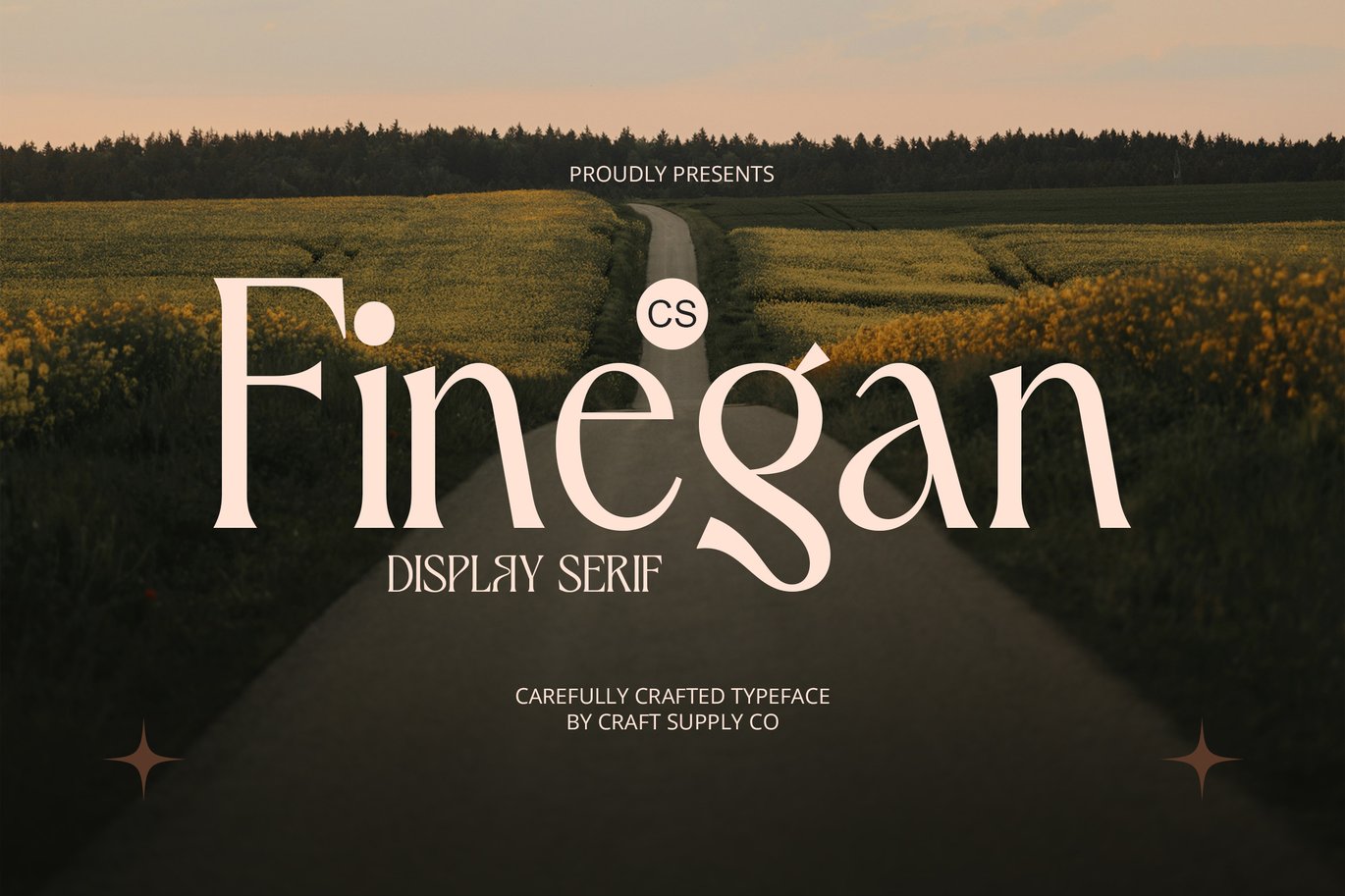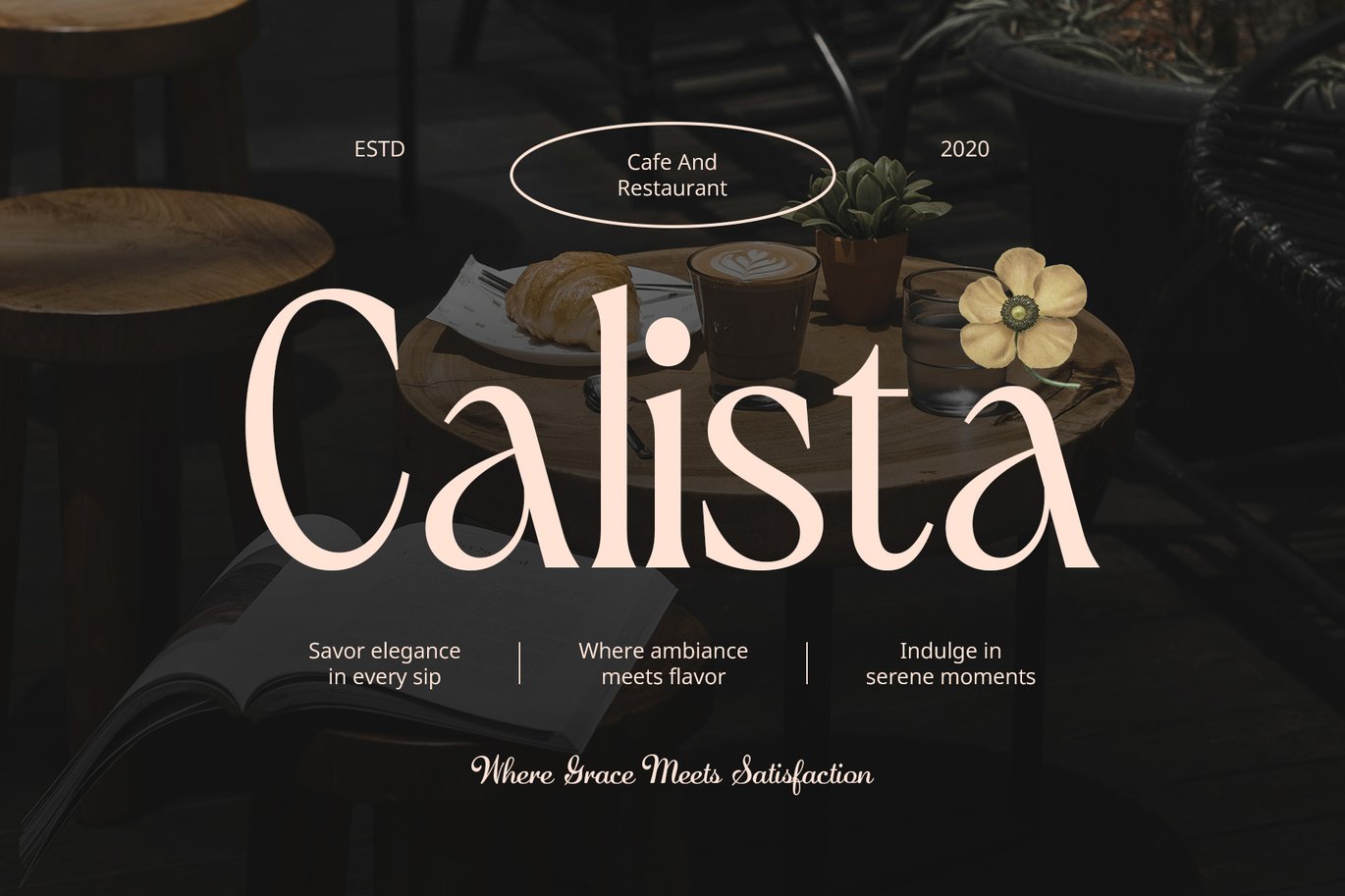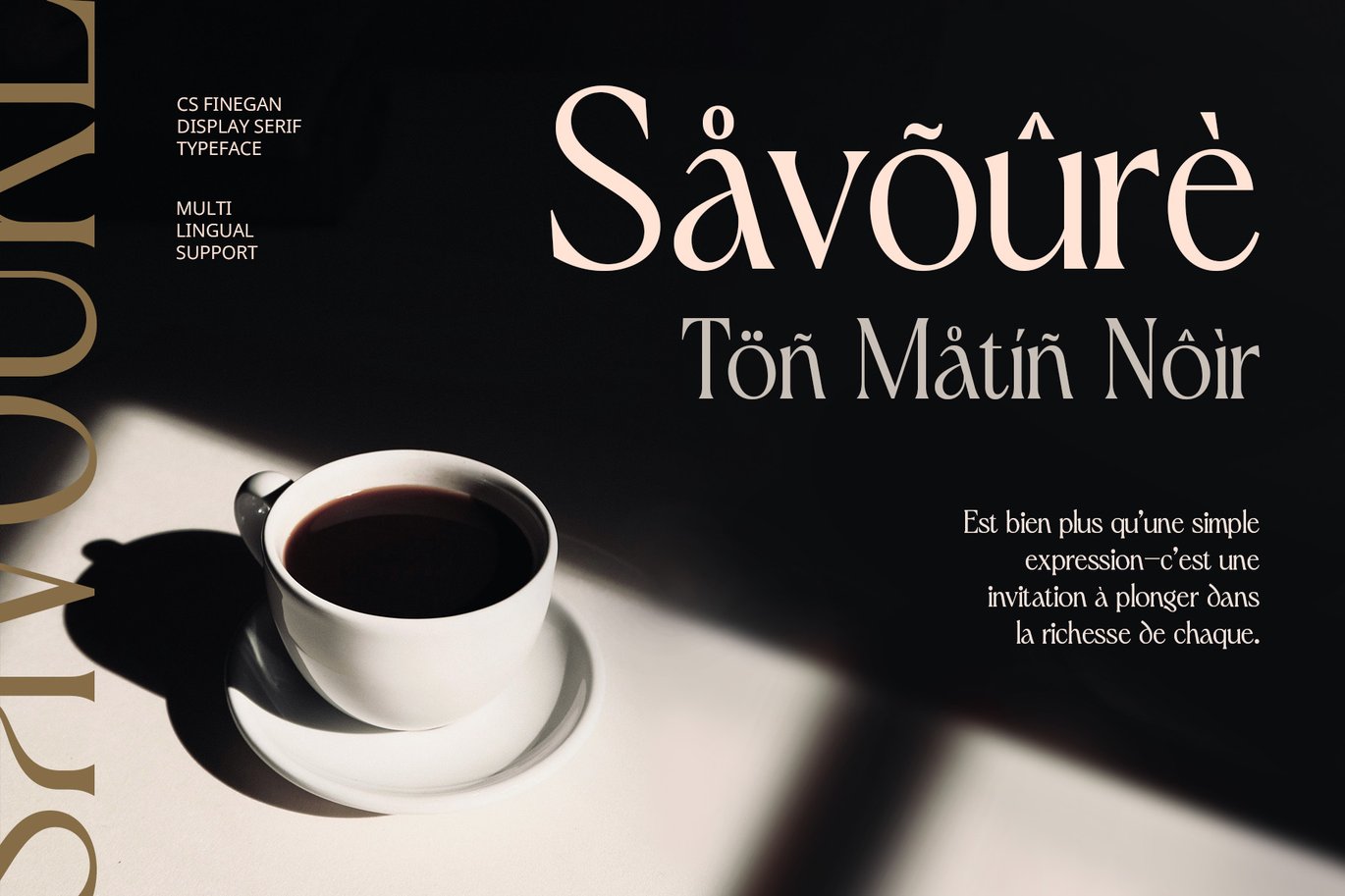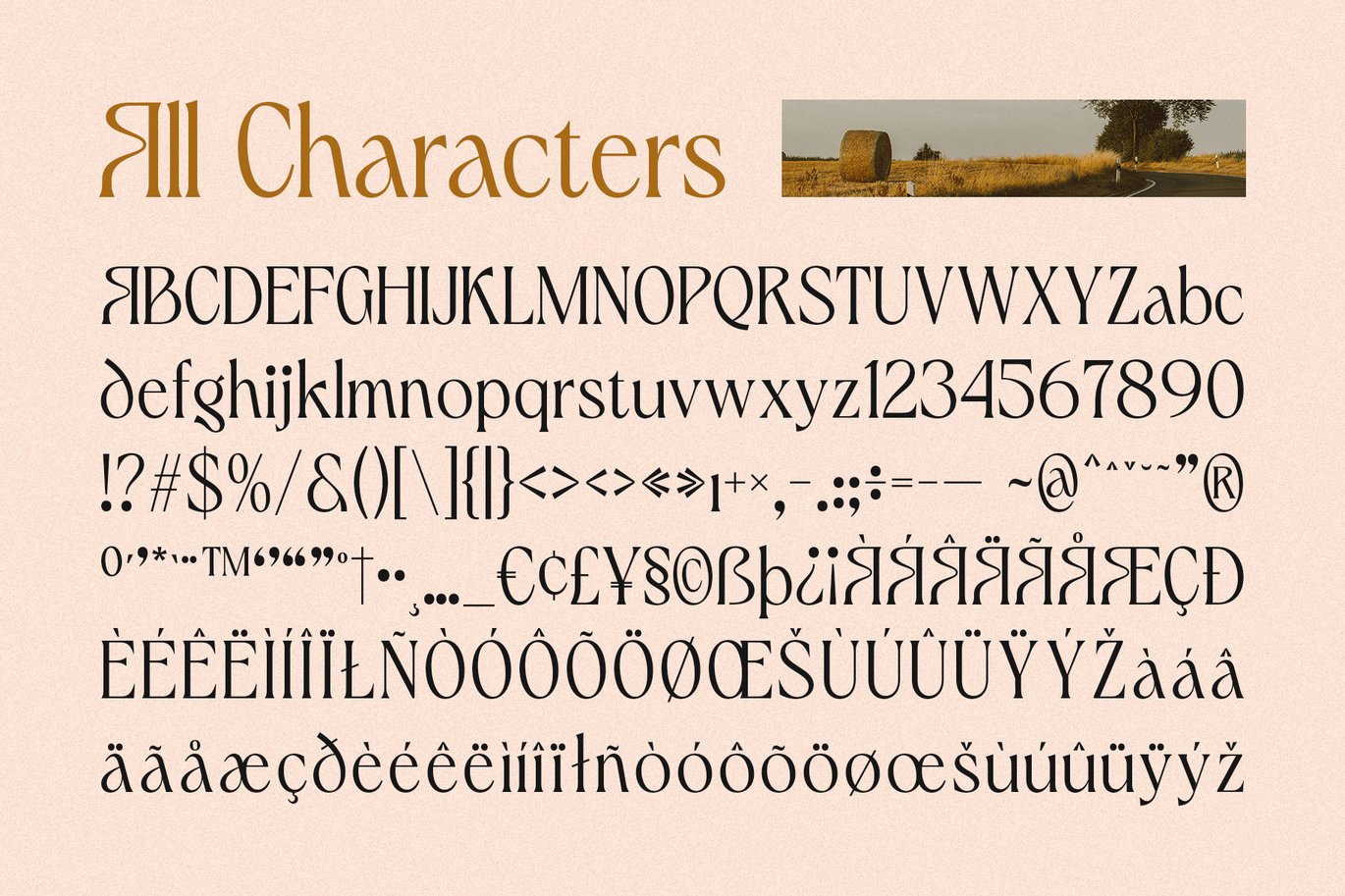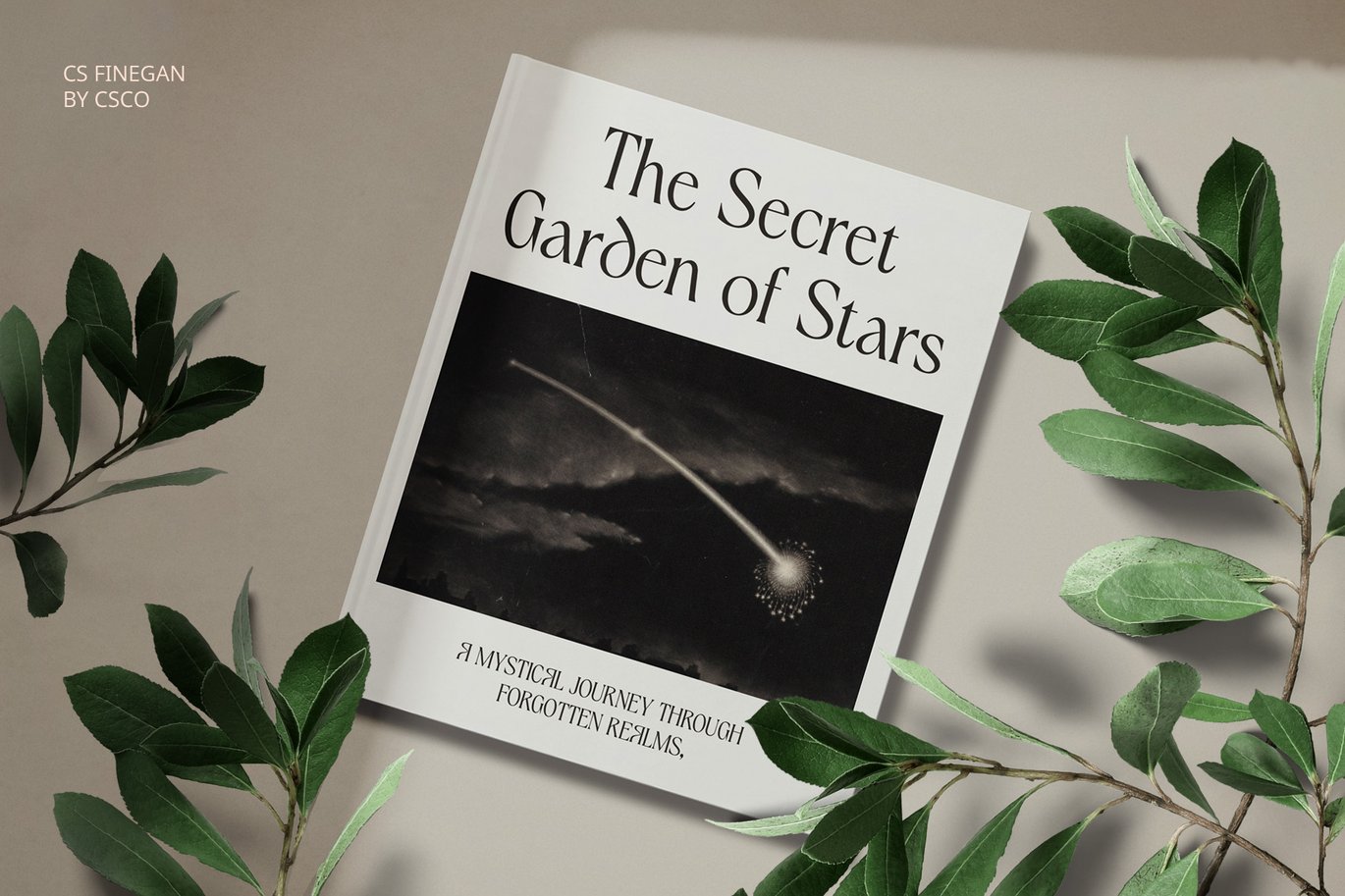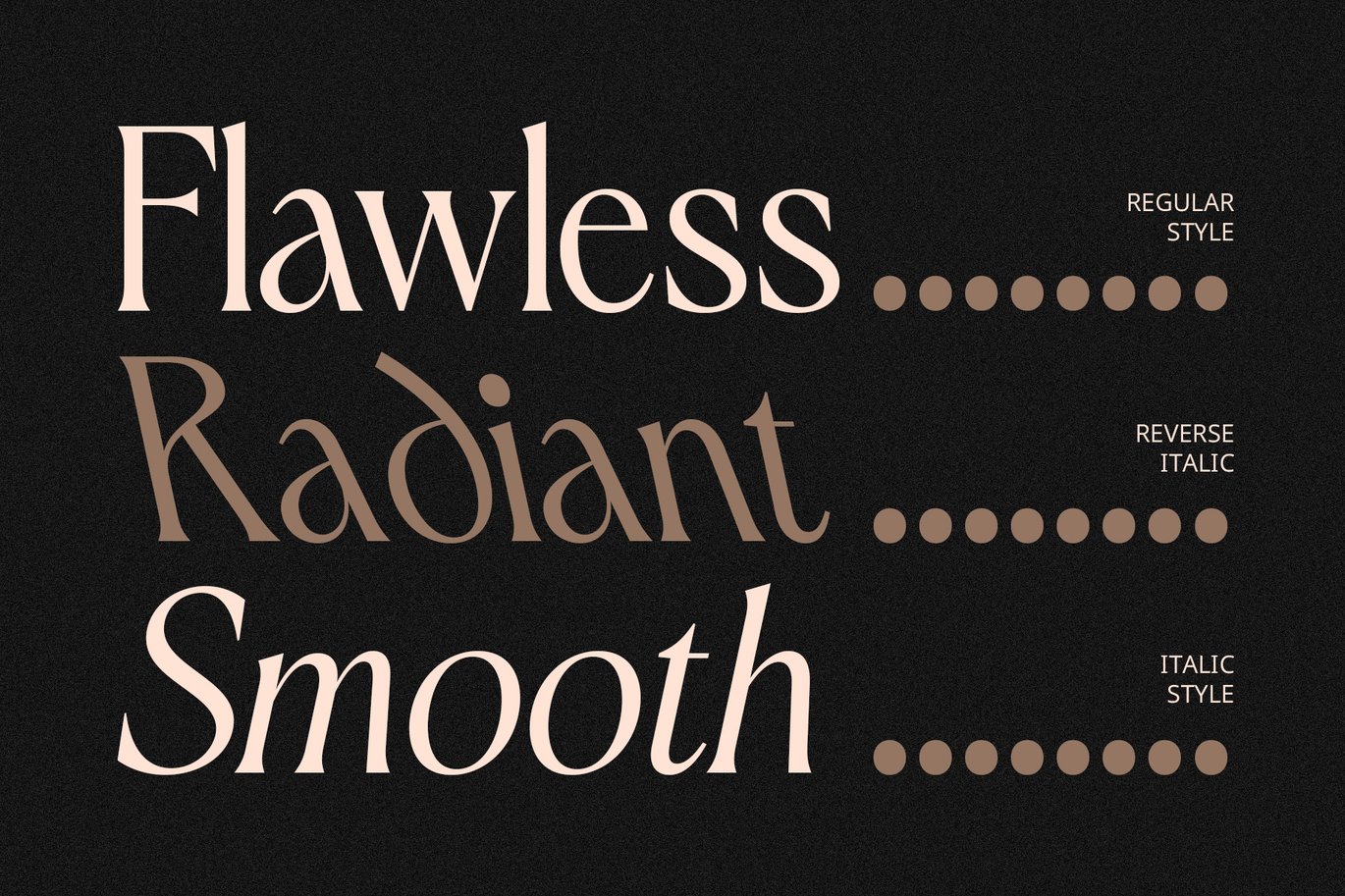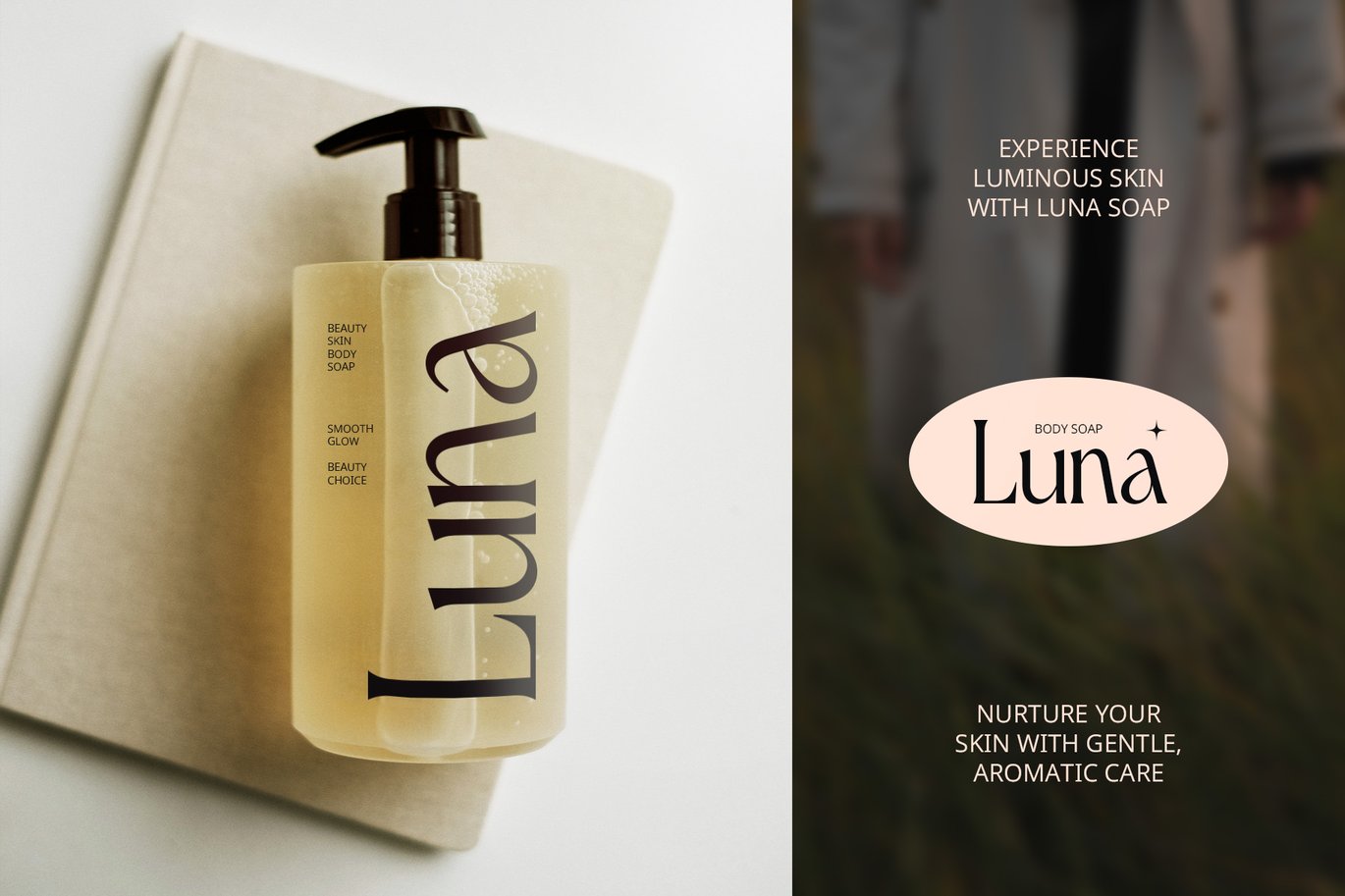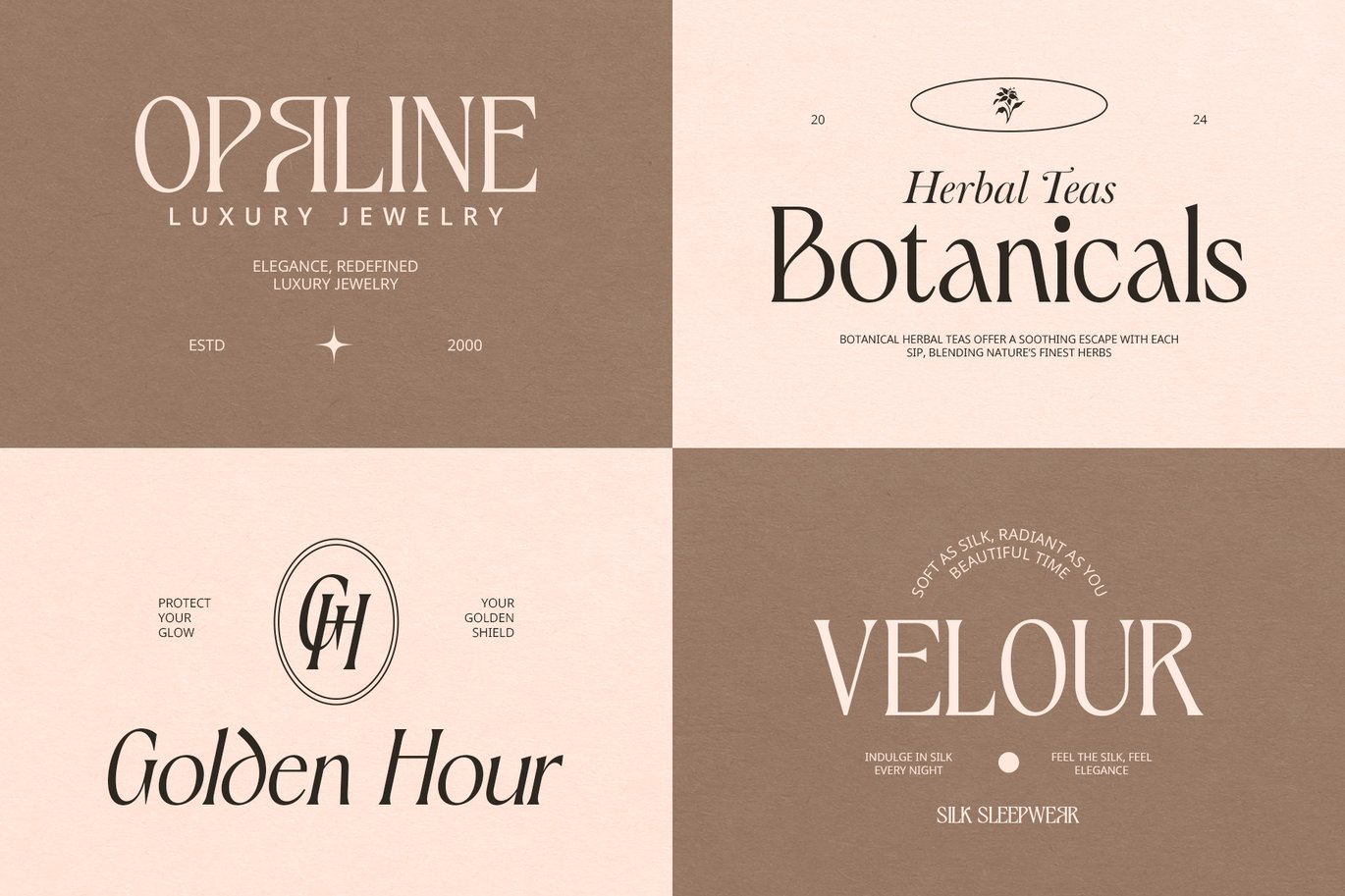
Finegan – Elegant Font
CS Finegan – Elegant Font: Modern Serif with Timeless Elegance
Sleek and Slim Letterforms for Sophistication
CS Finegan is a modern serif display font that features sleek, slim letterforms, combining contemporary sophistication with timeless elegance. Its refined, minimalistic design evokes a sense of luxury, charm, and high-end appeal. The delicate curves and clean structure make it the perfect choice for projects that demand a sophisticated and polished look, whether for branding or high-profile editorial designs.
Perfect for High-End Branding and Luxury Projects
CS Finegan shines in premium branding, offering a sense of refinement and professionalism. Ideal for fashion, luxury product packaging, and upscale editorial layouts, this font enhances the visual appeal of any design. Its balance between modern and classic aesthetics allows it to seamlessly fit into projects that require a high level of elegance and creativity, leaving a memorable impact on your audience.
Versatile for a Range of Elegant Applications
From luxurious magazines to elegant promotional materials, CS Finegan provides versatility without sacrificing style. The font excels in applications where refinement is key, such as corporate identities, high-end advertisements, and upscale event invitations. Its ability to maintain clarity and readability while offering a distinct, luxurious visual presence makes it a perfect choice for those seeking to convey sophistication and prestige in every project.